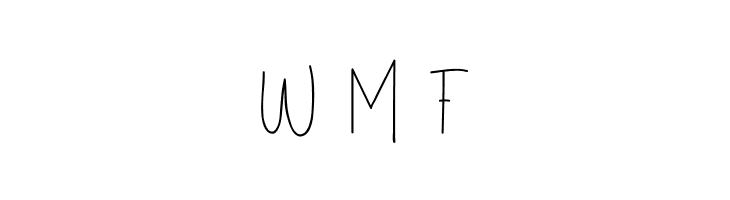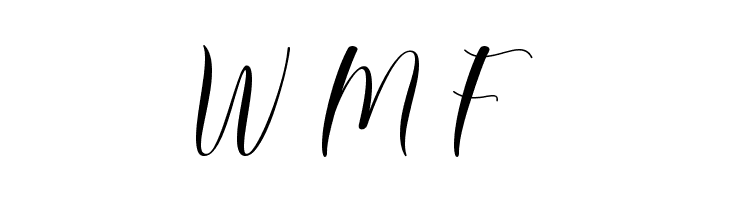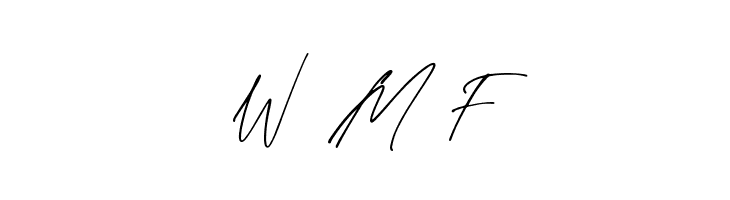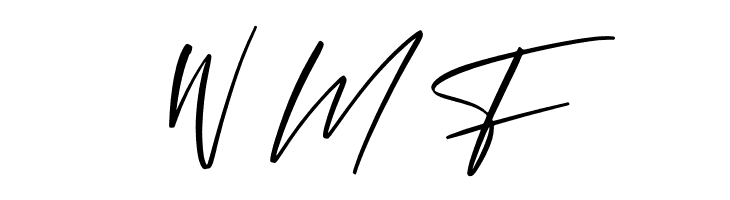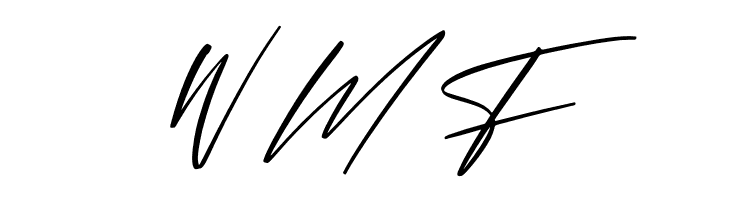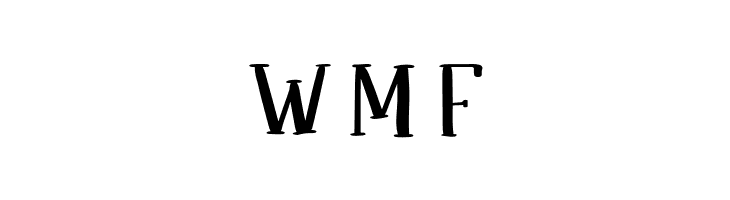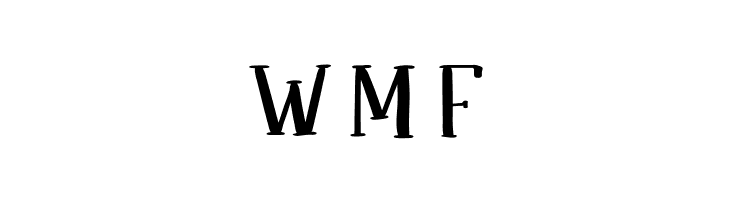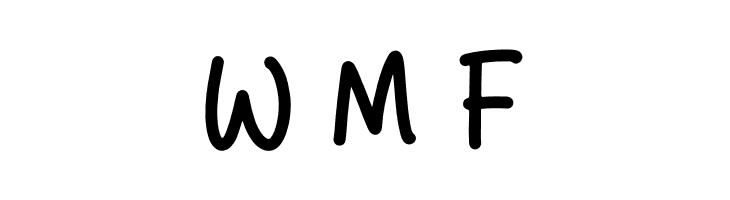
A playful, handwritten font with smooth, rounded edges and consistent stroke width.
An elegant and flowing script font with interconnected characters and refined curves.
A delicate and flowing script font with elegant, cursive letterforms.
An elegant and flowing script font with graceful, cursive letterforms.
An elegant, flowing script font with a sophisticated, handwritten style.
A bold, whimsical font with elegant curves and a modern touch.
A bold, artistic font with tall, narrow letters and unique serifs.
A lively, handwritten cursive font with medium contrast and fluid strokes.
A dynamic and expressive script font with fluid, cursive strokes.
A modern, elegant script font with high contrast and flowing cursive style.